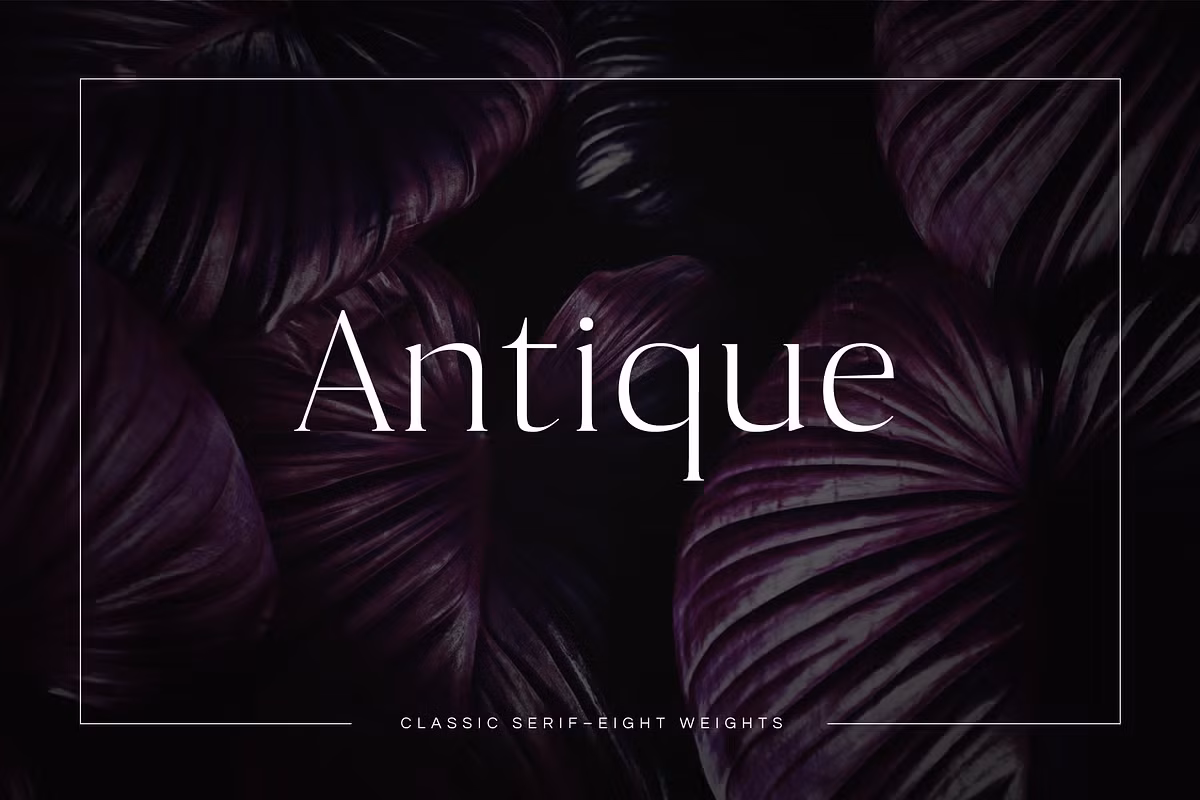
The Antique - Luxury Serif Typeface Free Download is a sophisticated and timeless font designed to add elegance and luxury to your designs. With its classic serif style and intricate detailing, this font is perfect for creating high-end branding, logos, editorial designs, and premium invitations. The Antique typeface combines traditional elements with modern appeal, making it an ideal choice for upscale projects that require a refined, professional look. Whether you’re working on luxury product branding, editorial layouts, or exclusive event invitations, this font will elevate your typography with its elegant and polished style. Please note, for commercial use, a license purchase is required. However, you can easily download the Antique - Luxury Serif Typeface Free Download for free for personal use and explore its potential in your designs. Download the Antique - Luxury Serif Typeface Free Download today and add a touch of luxury to your creative projects.